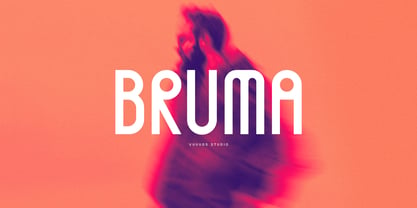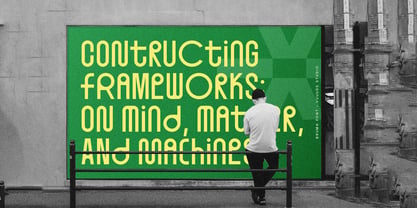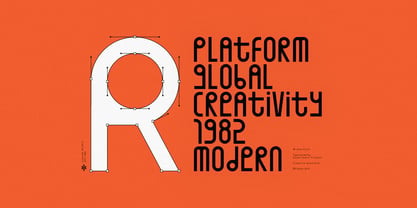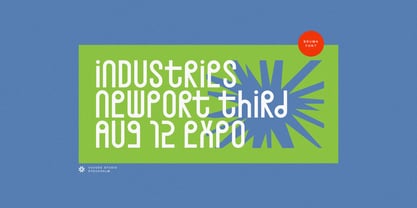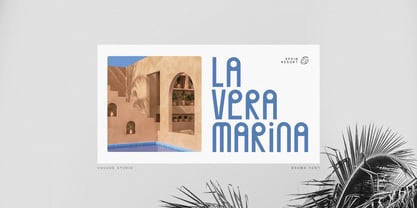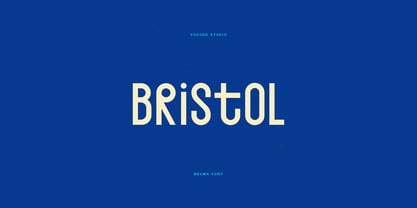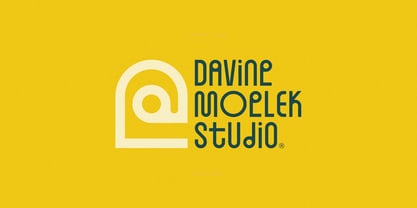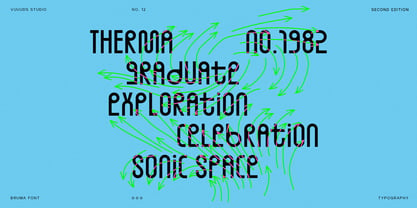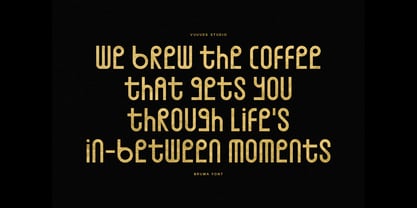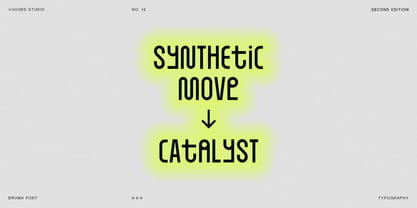
Bruma
Die Schriftfamilie Bruma wurde von Agung Syaifudin entworfen und von vuuuds veröffentlicht. Bruma enthält 1 Stile. Mehr über diese Familie
Introducing Bruma Font! Bruma is modern condensed monoline font, every single letters have been uniquely crafted. This font including beautiful alternate glyph. You can access the alternate glyph via Font Book (Mac user) or Windows Character Map (Windows user), I've been put the link tutorial inside the zip file. Foreign languages support: ÀÁÂÃÄÅÆÇÈÉÊËÌÍÎÏÐÑÒÓÔÕÖØÙÚÛÜŸÝ àáâãäåæçèéêëìíîïðñòóôõöøùúûüýÿ ߀£¥©®™ Thanks for looking. IG: vuuuds studio
vuuuds studio is a typeface design studio founded by Agung Syaifudin. This studio was founded in 2015 in the city of Malang, Indonesia.We like to experiment with fonts so that each font we have has a unique and fresh personality.Our focus is on creating fonts with unique styles, so that each of our fonts can stand out when applied to a design.We're always up to date with design so the font experiments we produce are sure to help designers beautify their projects.